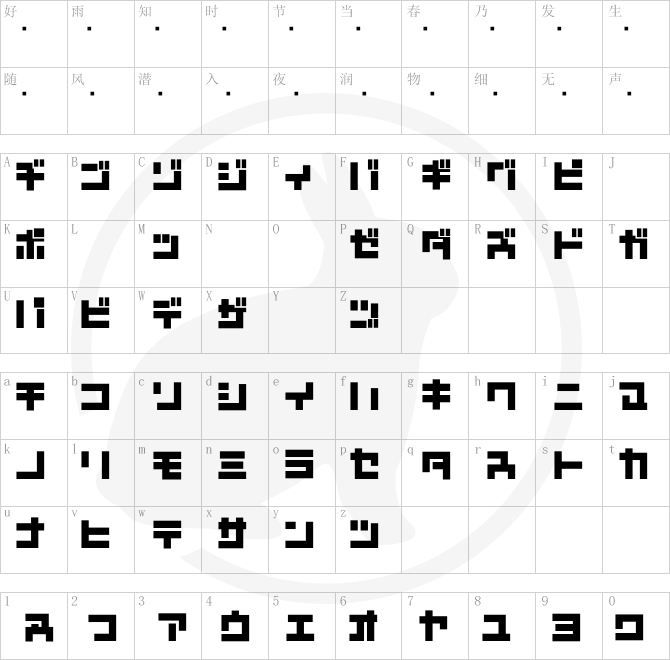
- Font Name:D3 Mouldism Katakana
D3-Mouldism-Katakana.ttf is a very beautiful artistic font, D3-Mouldism-Katakana.ttf is widely used in the design and printing of various books and pictures,D3-Mouldism-Katakana.ttf has a strong visual impact,D3-Mouldism-Katakana.ttf is a commonly used font in newspapers, magazines and books, and is used in posters, e-commerce Poster design, store design, logo design, font design and other fields.D3-Mouldism-Katakana.